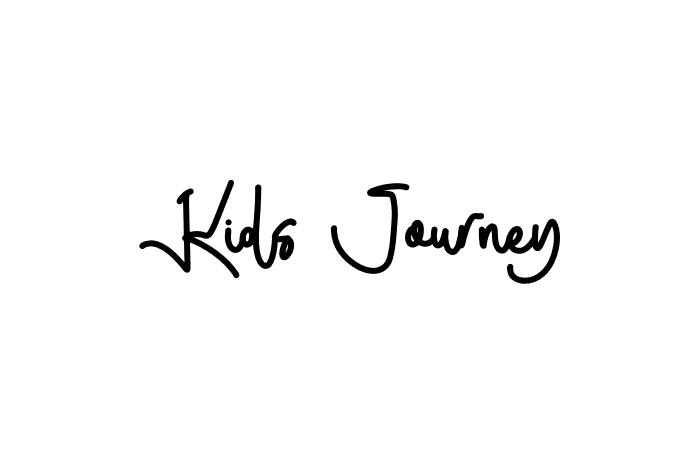
Satnight Signature Font
Introducing Satnight Signature Font! Satnight Signature is an amazing script font. this typeface suitable for greeting card, logotype, wedding, invitation card, signature mark, and etc.
Font name Satnight Signature Font
Font designer Letterday Studio
Font Family Satnight Signature
Typeface classification Handwritten,Script